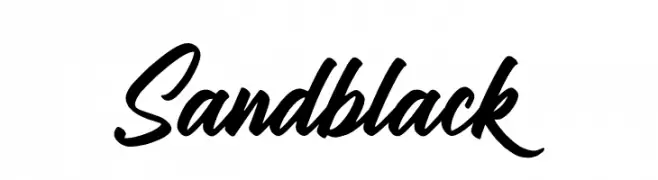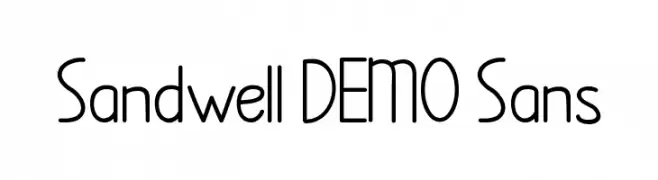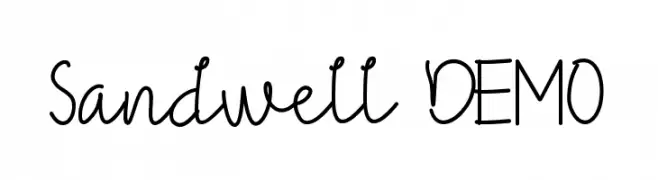
A dynamic and fluid handwritten script font with elegant, flowing strokes.
A bold, pirate-themed font with ornate flourishes and dramatic serifs.
A playful, bold, and rounded font with a hand-drawn aesthetic.
A playful and casual handwritten font with dynamic strokes and a friendly appearance.
A bold, cursive font with interconnected, flowing letters and strong strokes.
A bold, brush-style font with a unique dripping effect, perfect for artistic projects.
A playful, rounded font with smooth curves and a friendly appearance.
An elegant script font with fluid, graceful strokes and artistic curves.
A modern, playful sans-serif font with tall, narrow characters and rounded edges.
A playful, handwritten font with smooth, flowing lines and a casual style.